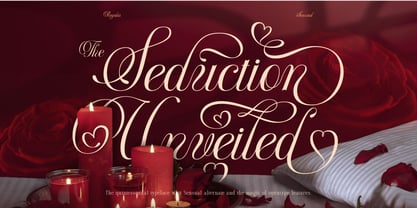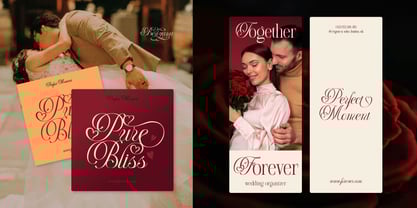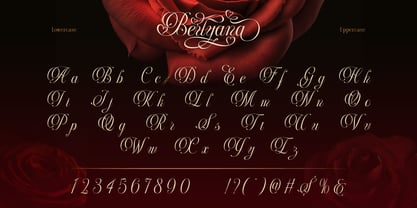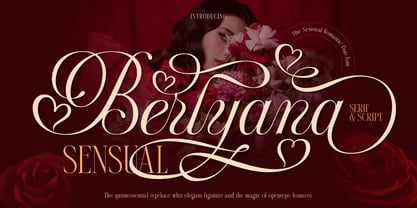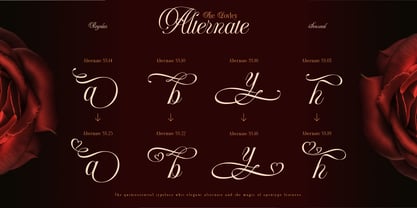
Berlyana Sensual
by Burntilldead
The Berlyana Sensual Font Family was designed by Eric Kurniawan and published by Burntilldead. Berlyana Sensual contains 2 styles and family package options.
Introducing Berlyana Sensual, a whisper of romance and elegance from script and serif. This duo font combines the elegance of script with sense of love and the timeless classic serif with nostalgia touch. Include the alternates that stir sensuality, love, glamour and romance. With multilingual support (european basic support) makes this font ideal for global branding. Perfect for wedding invitation, heartfelt notes, valentine’s card, editorial design, branding, logo type and many more.
Features:
• A - Z set (Uppercase & Lowercase)
• Number
• Punctuation
• Alternates
• Multilingual